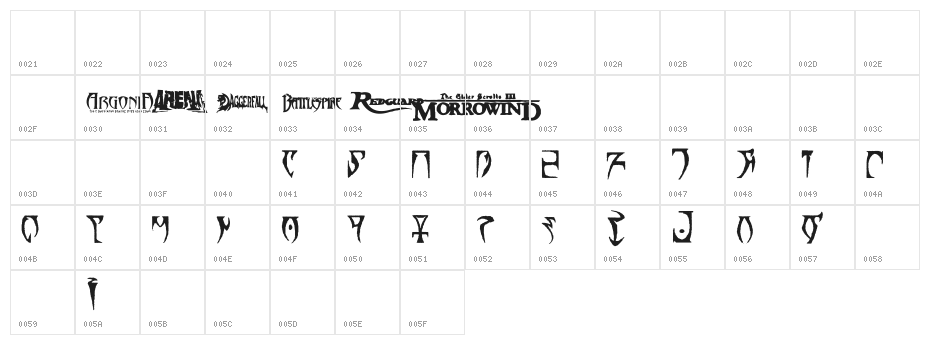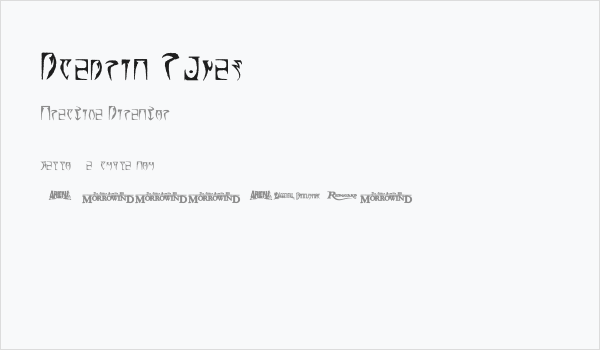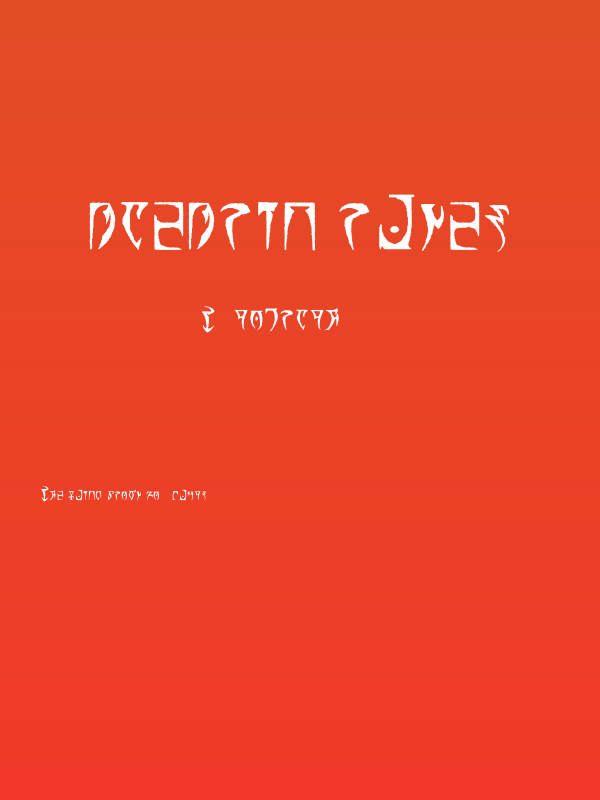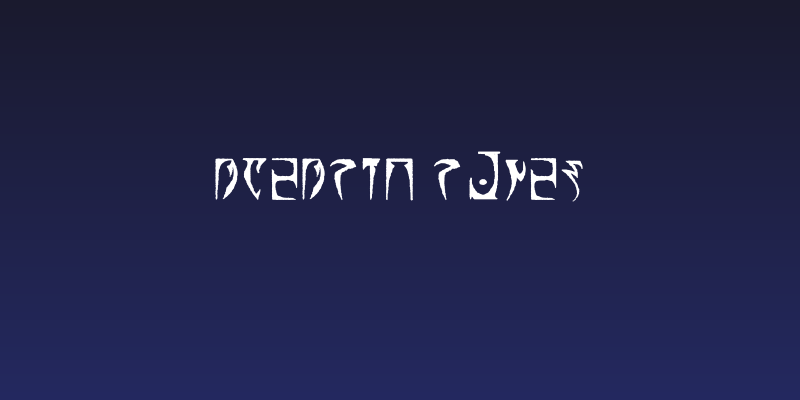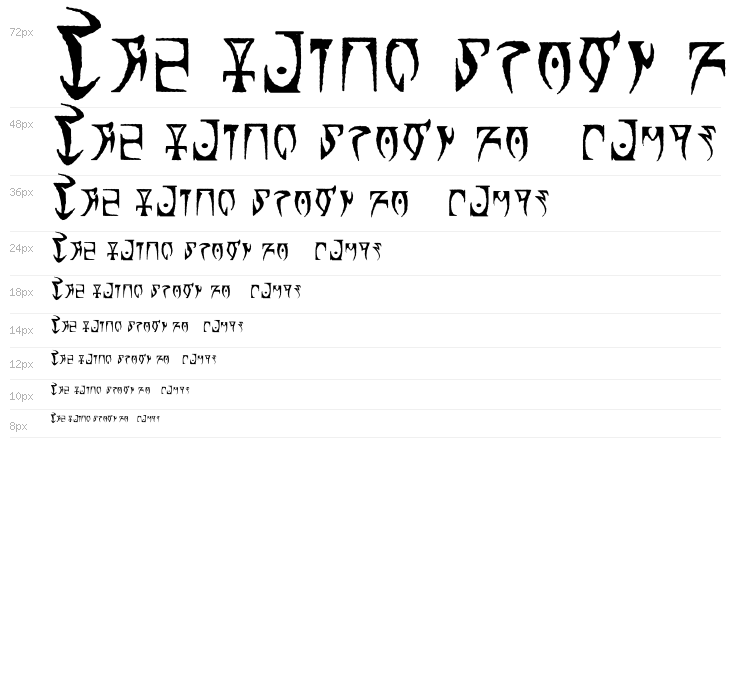
Daedric Runes Font
Daedric Runes Description
This font features a unique and mystical design inspired by ancient runes. The characters are sharp and angular, with a distinct, otherworldly appearance that evokes a sense of mystery and magic. Each letter is crafted with intricate details, giving the font a complex and decorative style. The strokes are bold and pronounced, with varying thickness that adds depth and dimension to the characters. This font is perfect for creating a fantasy or medieval atmosphere, making it ideal for projects that require a touch of the fantastical. Its distinctive style makes it stand out, capturing attention with its enigmatic and arcane aesthetic.
| Overall Style | Mystical, Fantasy, Decorative |
| Use Case | Logos, Titles, Posters |
| Proposed Projects | Ideal for fantasy-themed projects, game design, book covers, and posters that require a mystical or medieval touch. |